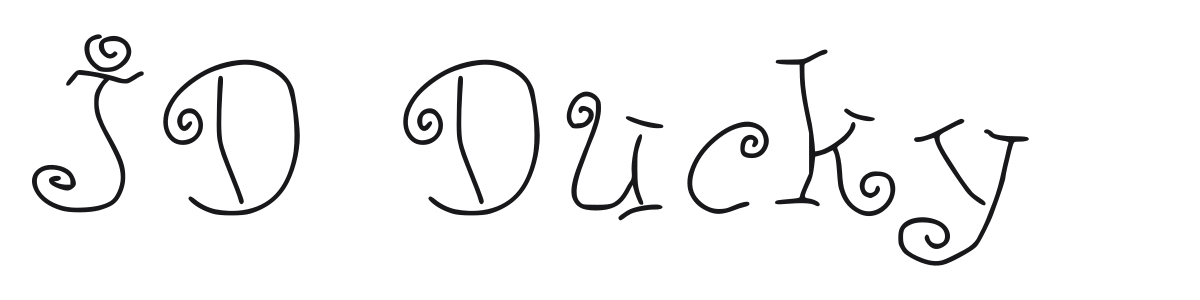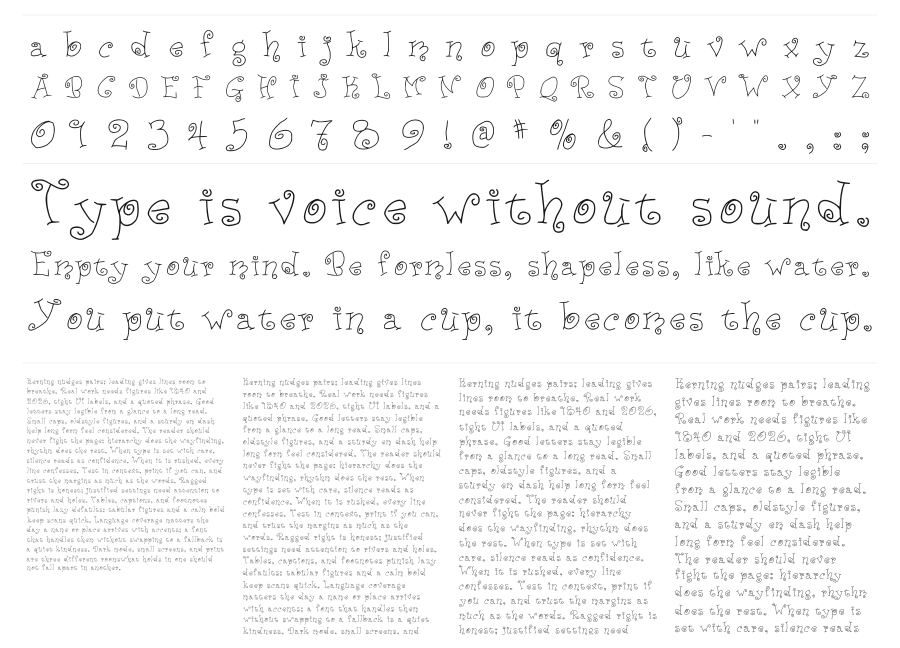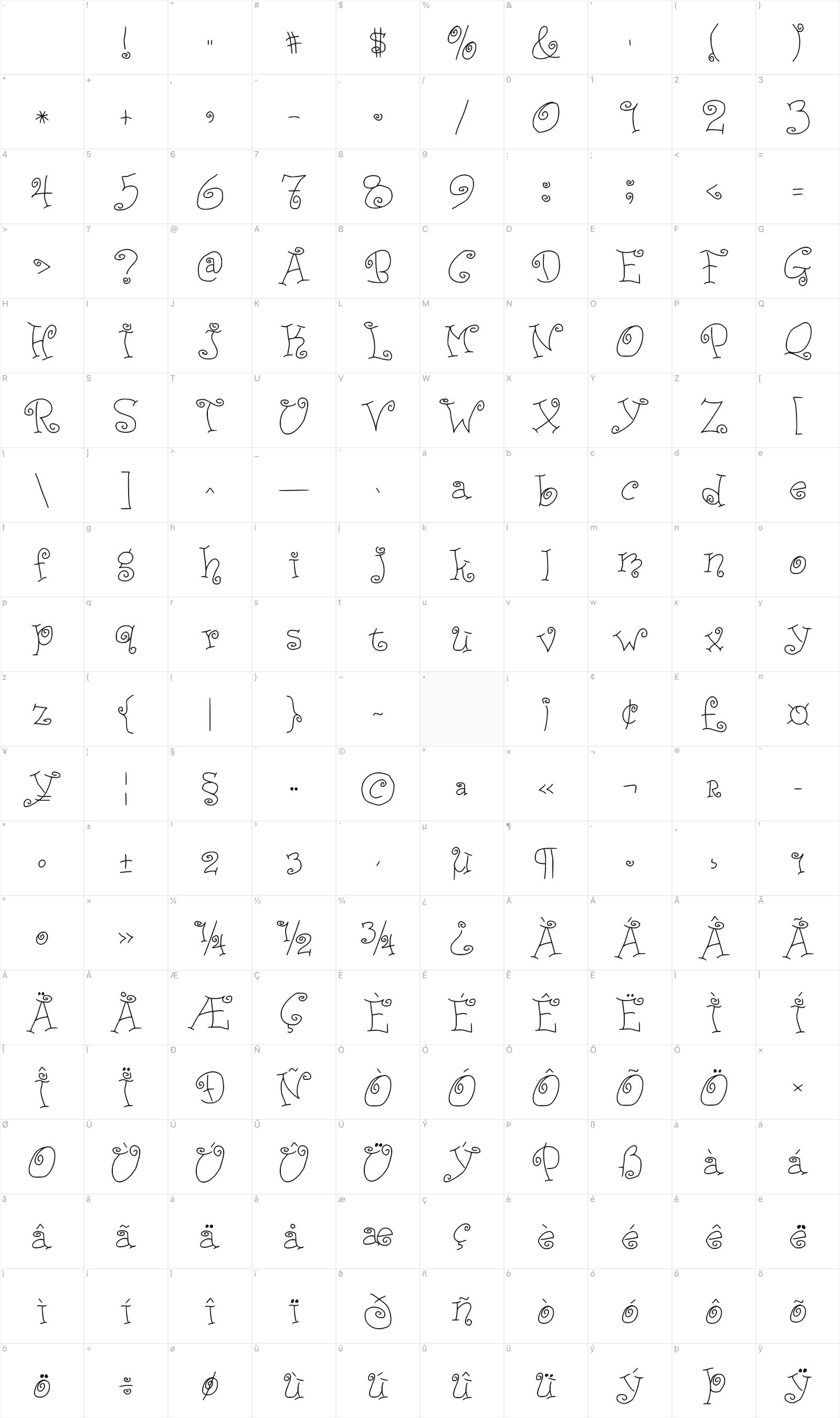
JD Ducky
JD Ducky is a thin outline display font built around looping, spiral-tipped stroke terminals that give every character a curly, animated personality. The near-monoweight strokes and irregular rhythm feel hand-drawn without being sloppy. It works best at large sizes where those curlicue details can breathe.